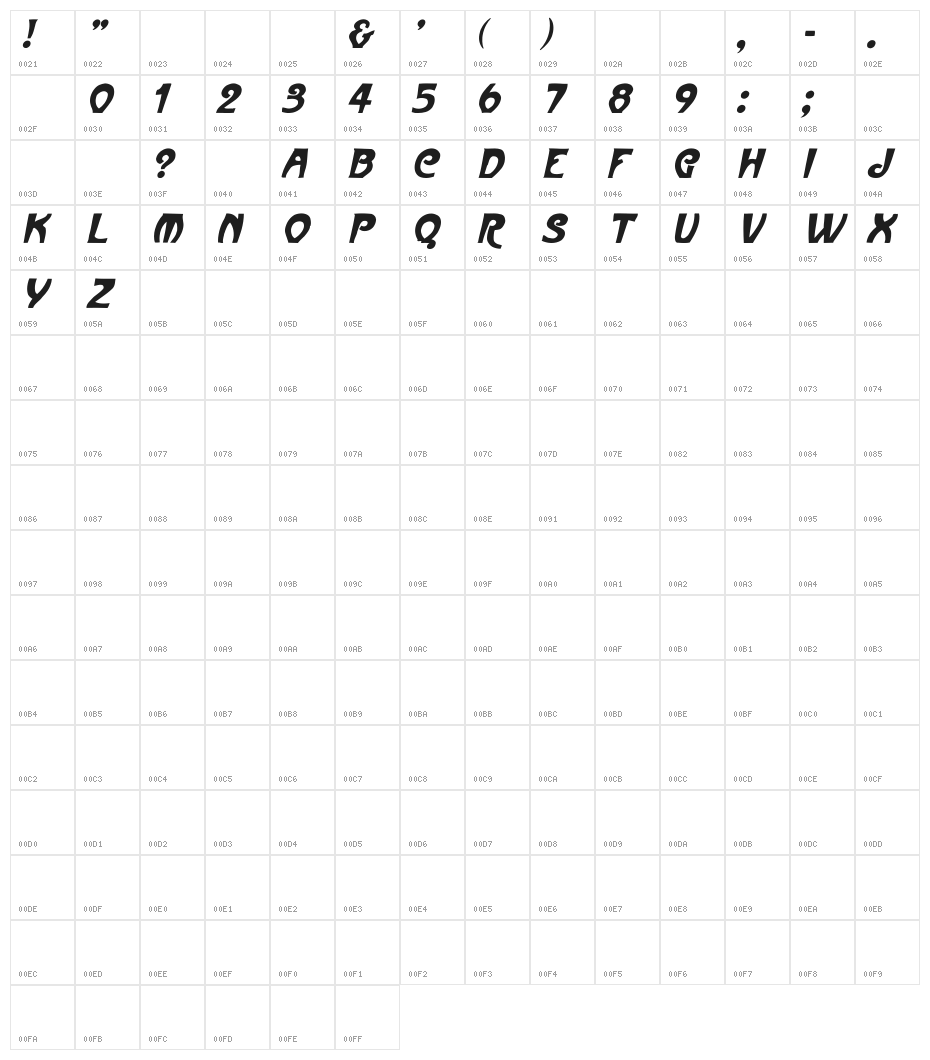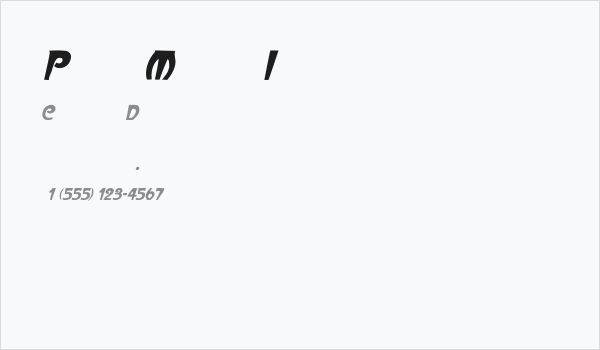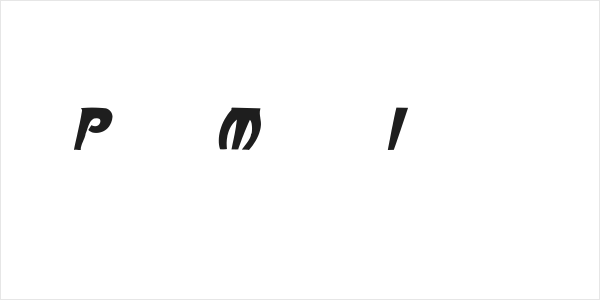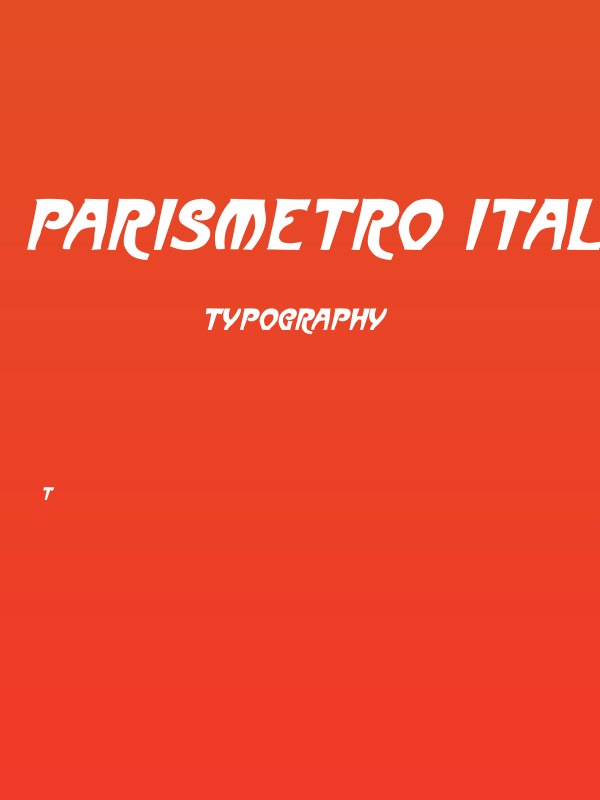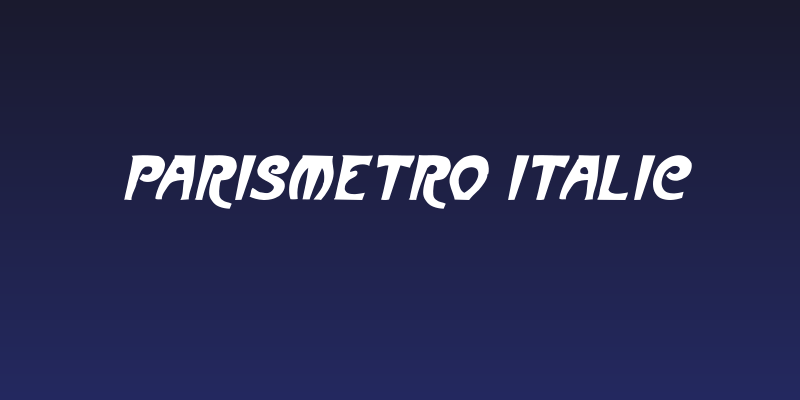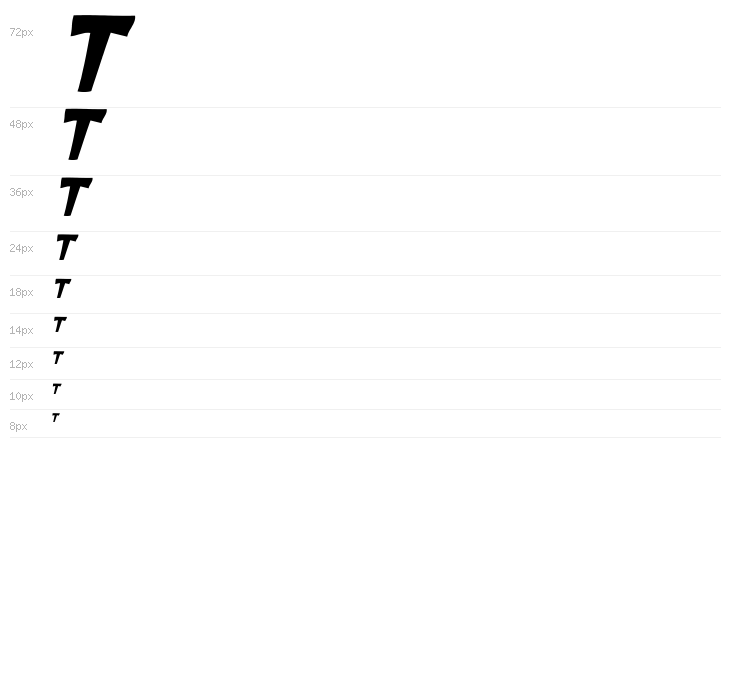
ParisMetro Italic Font
ParisMetro Italic Description
This font features a bold and dynamic style with a distinct italic slant, reminiscent of classic Art Nouveau influences. The characters are thick and robust, with a playful yet sophisticated flair. The uppercase letters exhibit unique curves and angles, giving them a sense of movement and energy. The numerals and special characters maintain this lively aesthetic, ensuring consistency across all glyphs. The overall design is both decorative and functional, making it suitable for a variety of creative applications.
| Proposed Projects | Ideal for vintage-themed posters, branding for creative industries, or any project requiring a touch of classic elegance and flair. |